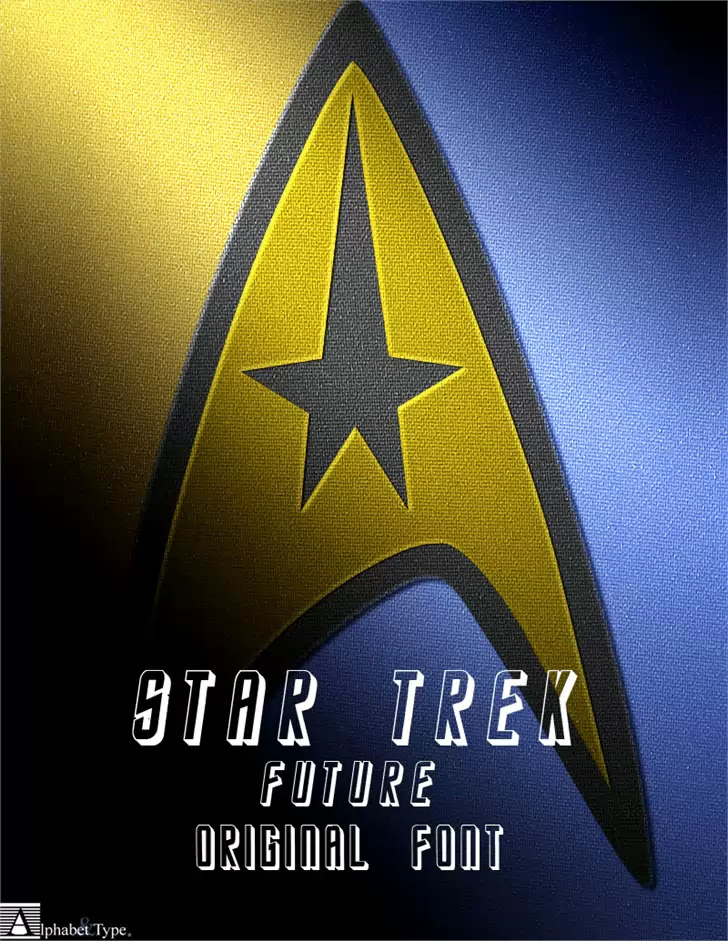
StarTrek Enterprise Future Italic by P. A. Vannucci is a free futuristic 3D display font with tall, sharply slanted capitals and clipped angles. Offset shadows give each narrow letter a solid cut-metal profile.
Science fiction and spaceflight themes are the clearest match for this design, especially in game graphics, film posters, and convention merchandise. Its pronounced forward lean and industrial depth also suit branding built around spacecraft, advanced machinery, or engineered environments. The recurring notches and blade-like corners can directly echo panel seams, vehicle silhouettes, and detailed robotic illustration.